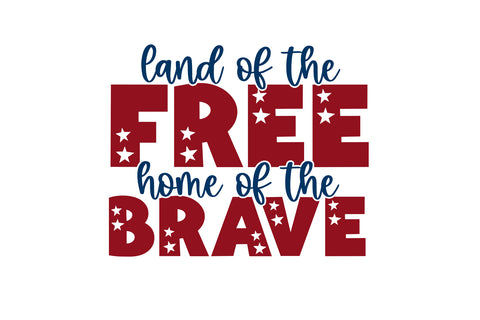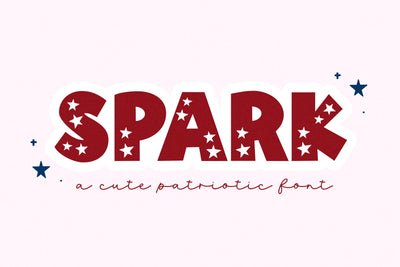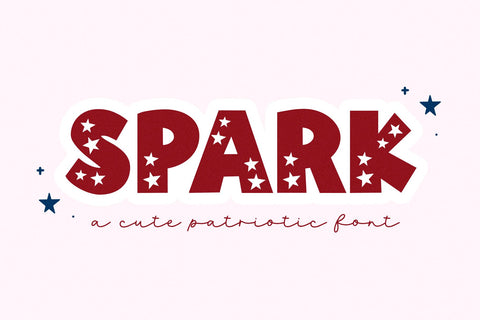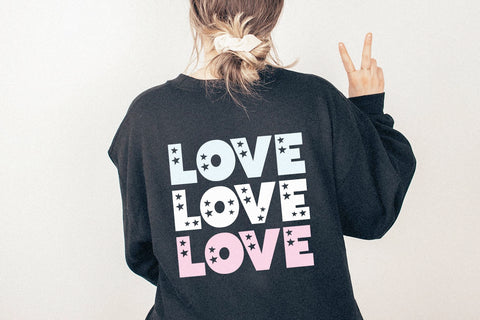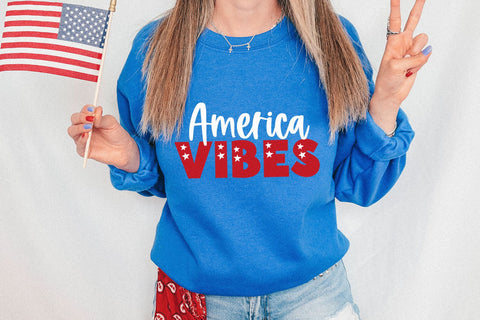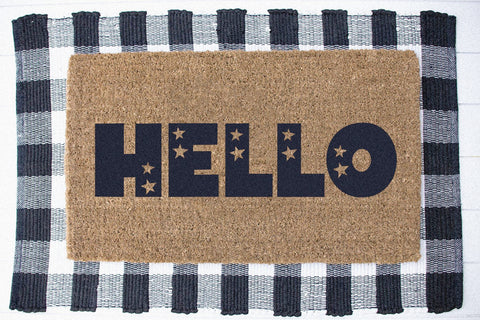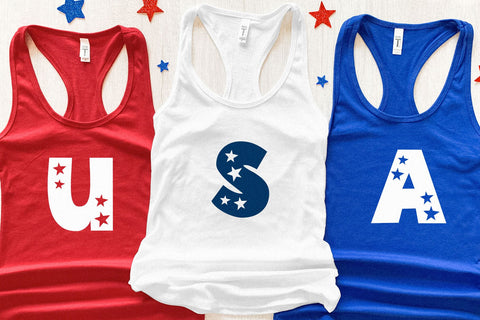
Spark - Fourth of July Font
Spark is a fun and quirky font - with stars!
This font is perfect for all of your Fourth of July designs, cricut projects, monograms, signs, stickers, shirts and more!
*Lowercase letters for more stars - Capital Letters for less*